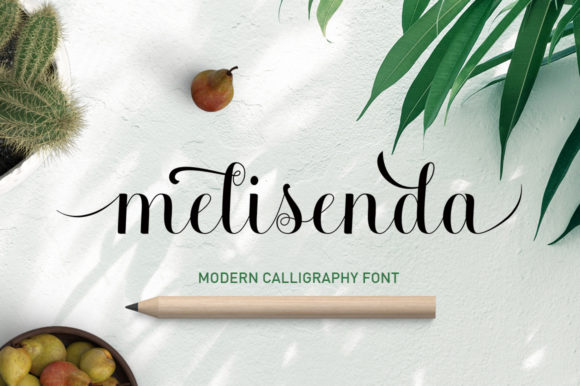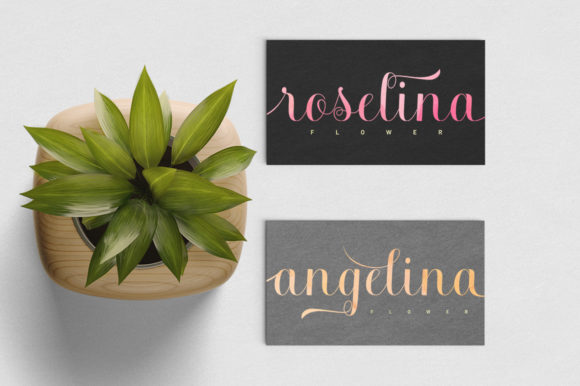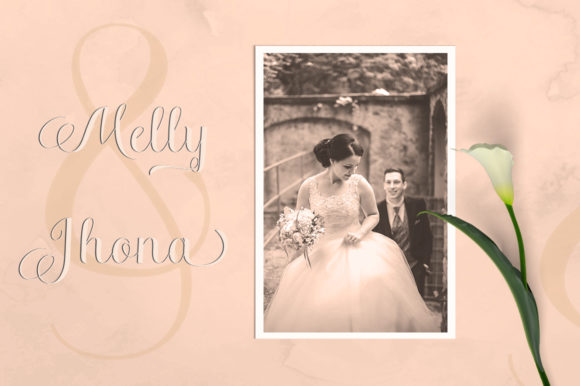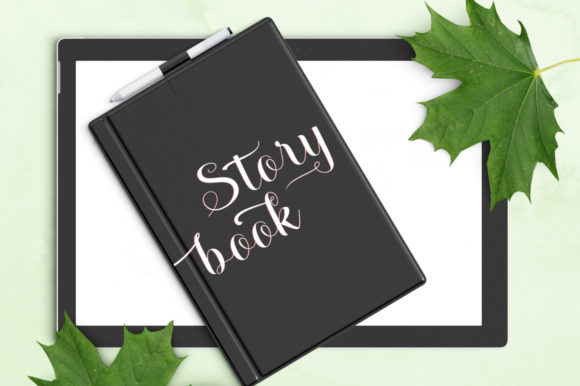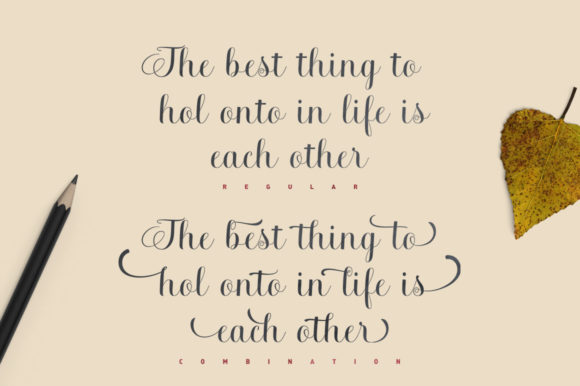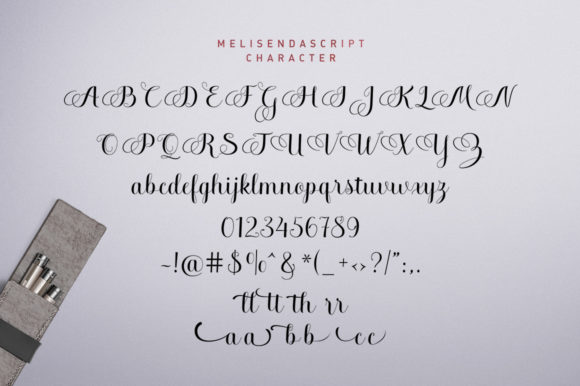
Melisenda Script Font
About Melisenda Script Font
Melisenda Script is a playful, yet elegant handwritten font with an undeniable charm. Use it for any design project that needs a light and authentic touch.